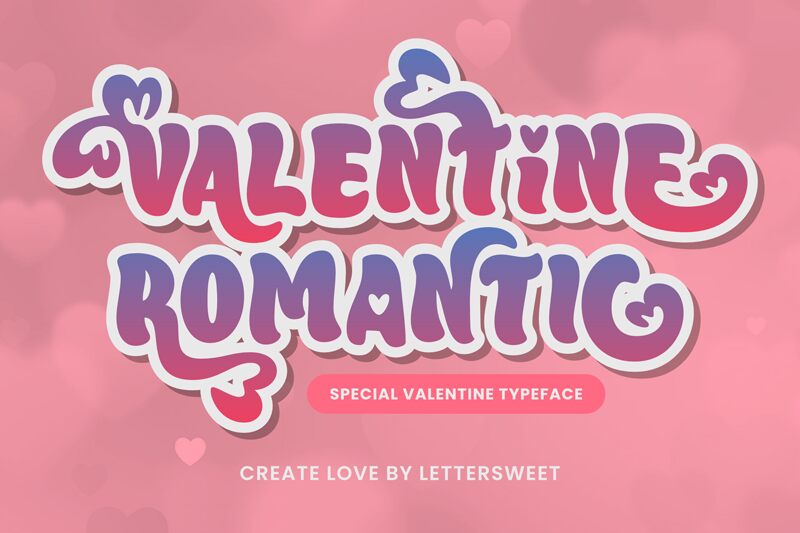
Valentine Romantic Regular
Valentine Romantic font is a free brush font from Lettersweet Studio. Imbued with a whimsical ornamental style, the font features decorative flourishes and heart motifs for an expressive vintage-inspired appearance. Each character is bold with clear readable strokes that can communicate loving messages to your audiences.
Use this romantic typeface for valentines-related promotions, wedding invitations, love letter posters, and greeting cards. Use it on flower shop fronts, packaging designs for chocolates and other edible gifts, social media posts or dating apps interfaces just to name a few ideas.